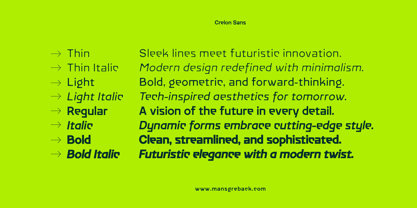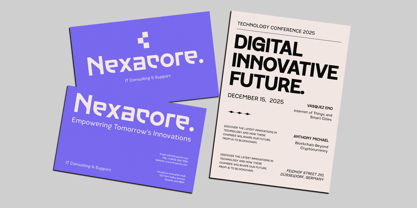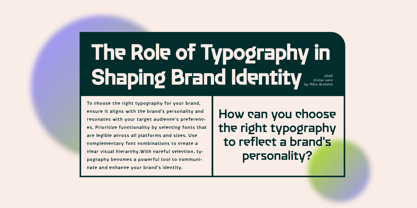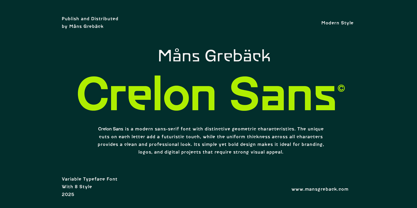
Crelon Sans
by Mans Greback
The Crelon Sans Font Family was designed by Måns Grebäck and published by Mans Greback. Crelon Sans contains 8 styles and family package options. More about this family
Crelon Sans is a striking, geometric typeface.
This bold and modern sans-serif font is built with square shapes and hard corners, giving it a strong and industrial look. The letters possess a condensed form, which makes it a good option to be used for headlines and logos. It could easily fit into a futuristic or high-tech context.
The font is built with advanced OpenType functionality and guaranteed top-notch quality, containing stylistic and contextual alternates, ligatures and more automatic and manual features; all to give you full control and customizability.
It has extensive lingual support, covering all Latin-based languages, from North Europa to South Africa, from America to South-East Asia. It contains all characters and symbols you'll ever need, including all punctuation and numbers.
Mans Greback created this typeface with a vision of a sturdy and precise font, useful for various applications that demand a modern and robust appeal.
Designers: Måns Grebäck
Foundry: Mans Greback